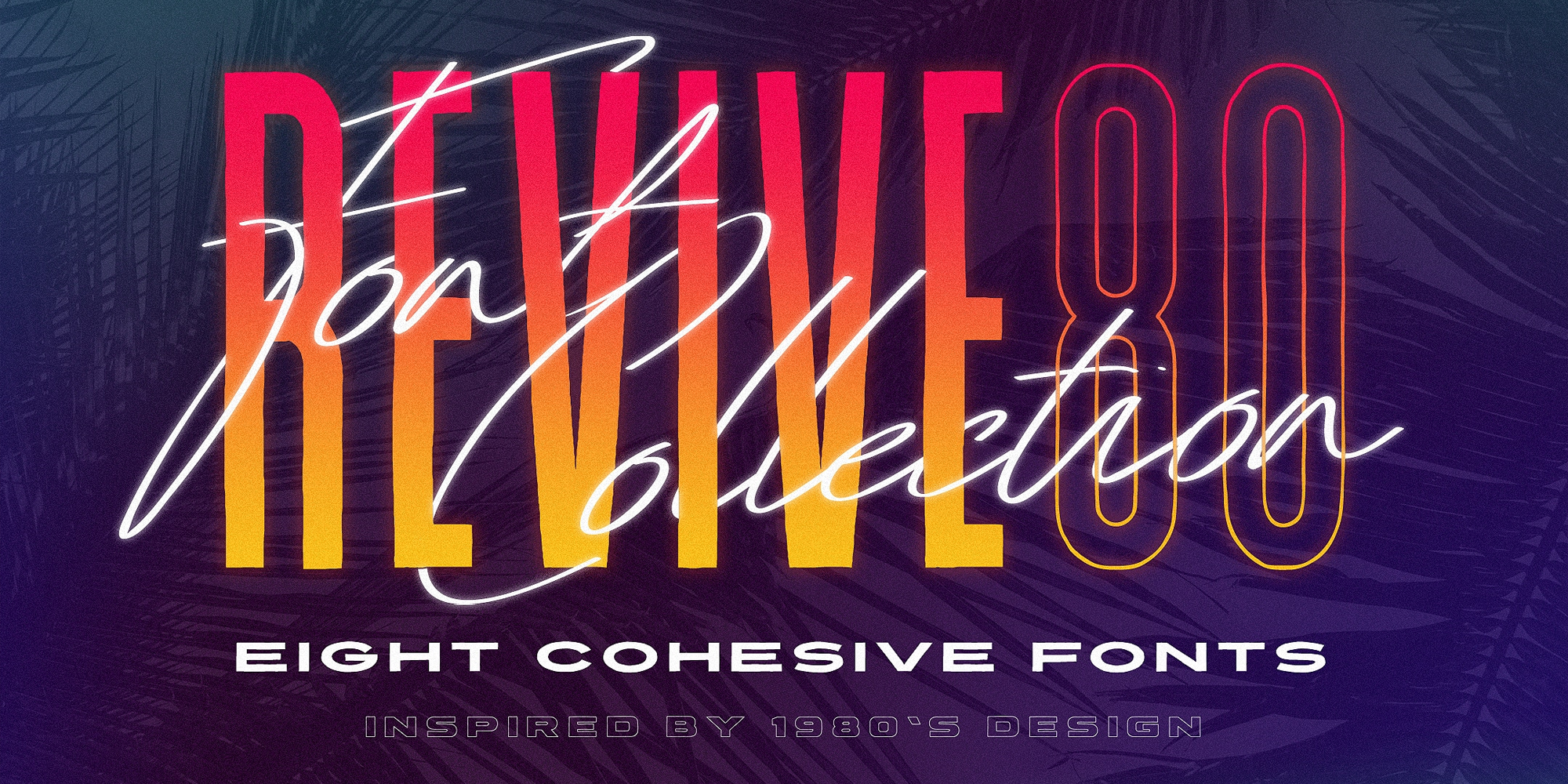
Revive 80 Font is ideal for branding, posters, album covers, and social media graphics. Its retro-inspired sans-serif and script styles, evoking 1980s arcade and neon aesthetics, excel in movie posters, event flyers, and nostalgic logo designs.
Why is Revive 80 Font exciting? Designed by Tom Chalky, its vibrant, experimental mix of geometric shapes and signature scripts captures the bold, unapologetic energy of the 1980s, blending retro charm with modern versatility.
The Revive 80 Font family includes eight styles: Signature, Smooth Signature, Phatt, Phatt Outline, Tall, Tall Outline, Wide, and Wide Outline, offering diverse options for creative projects.